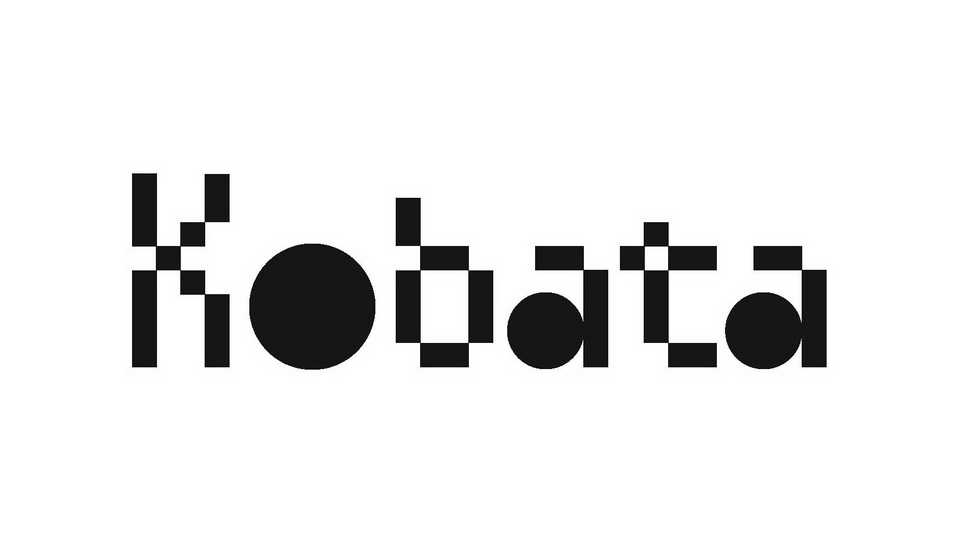
Download Kobata font, a geometric but functional typeface that takes some hints from calligraphy, embroidery and digital art. Kobata can be used on short texts, for visual identity and art projects, to create a dramatic effect.
Designer: Ariel Martín Pérez